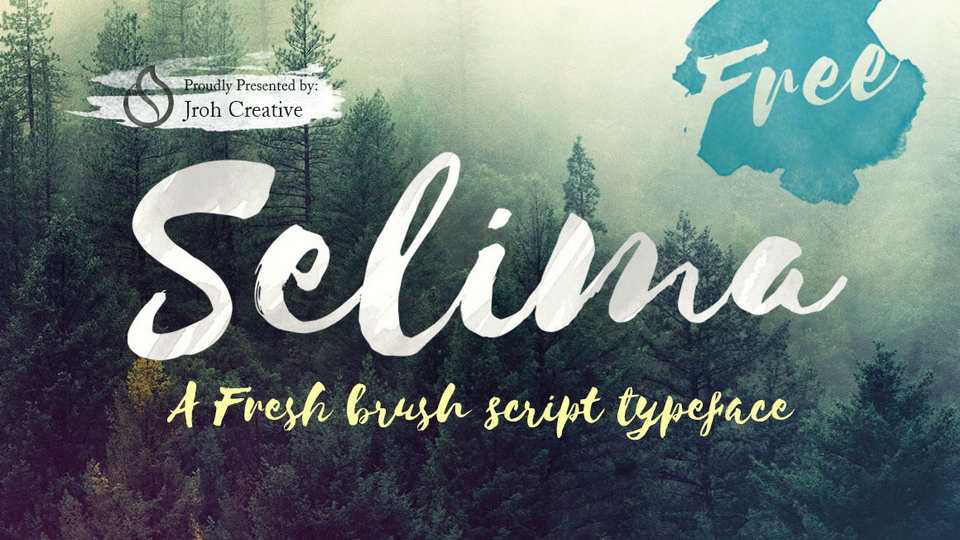
Download Selima font, a hand lettered bold and rough textured brush script. Works great for titles, blog headers, banners, social media and other attractve and loud messages.